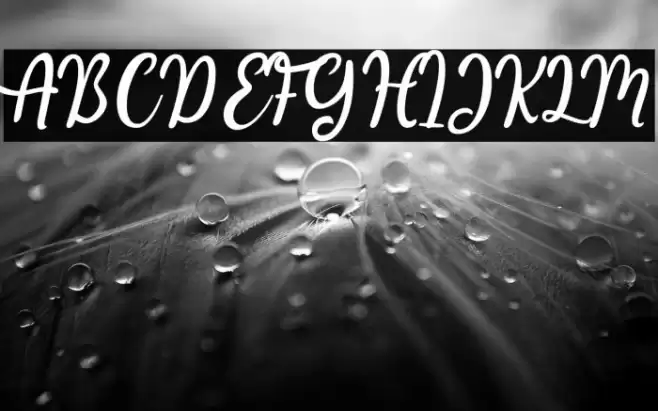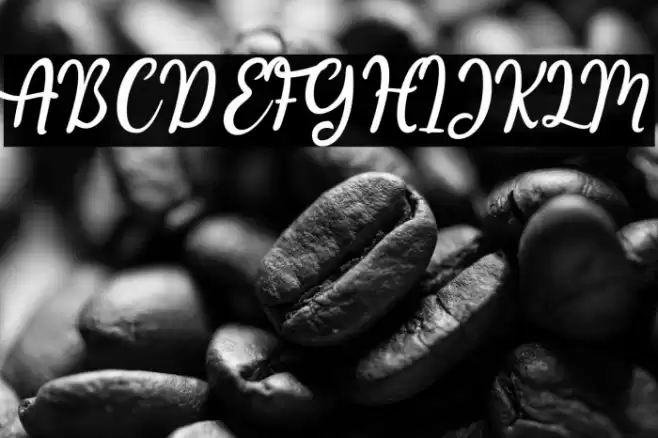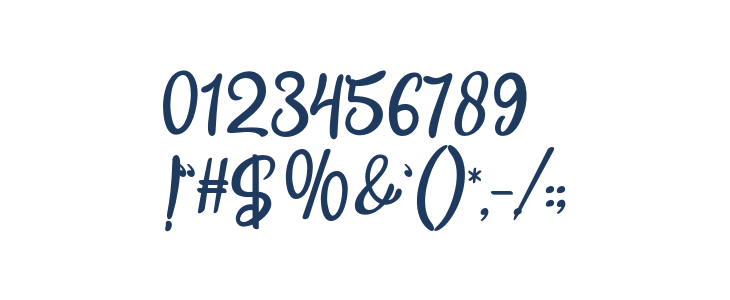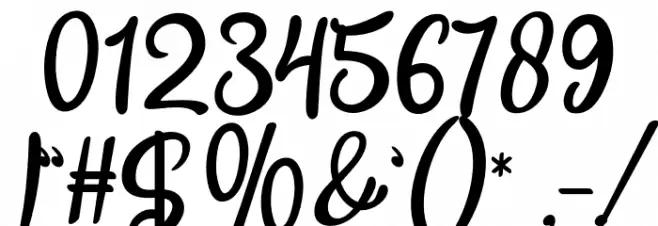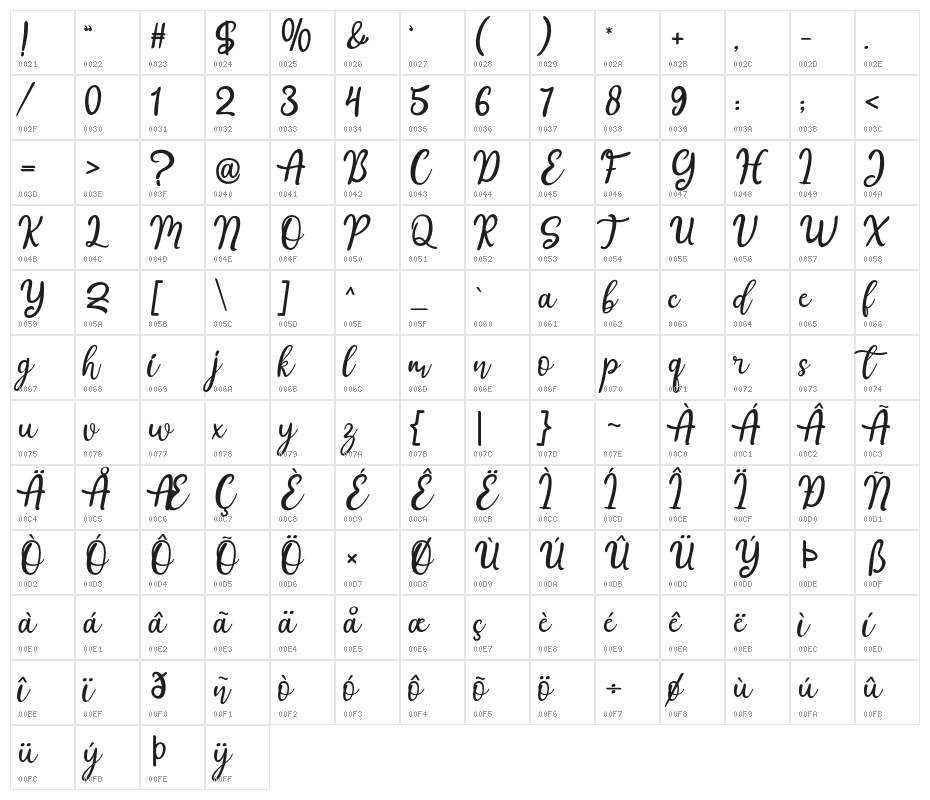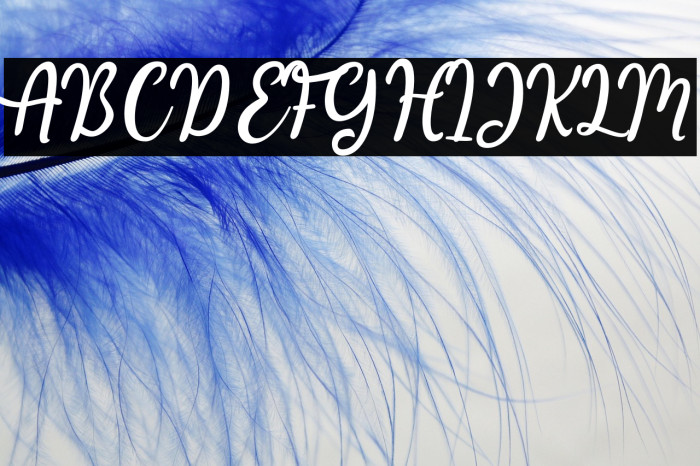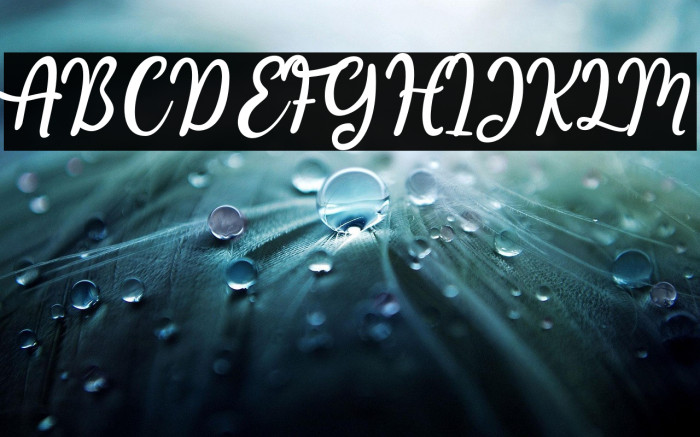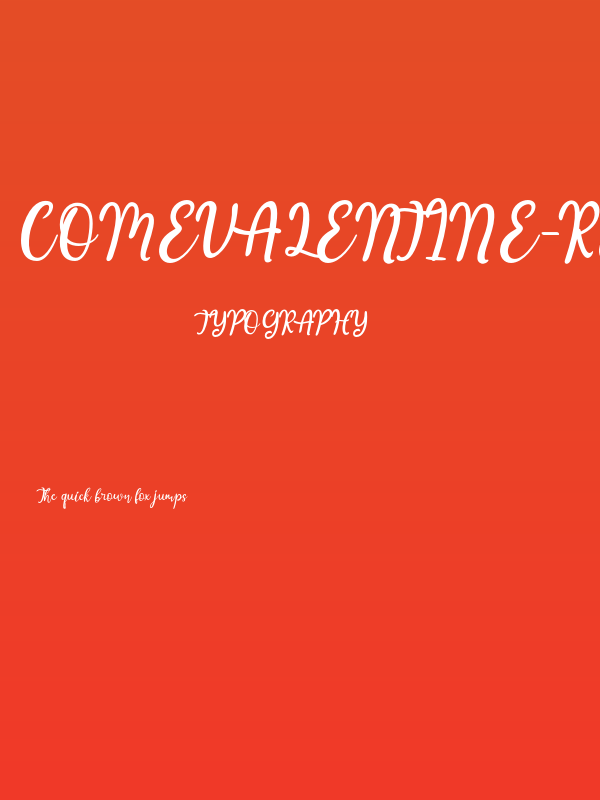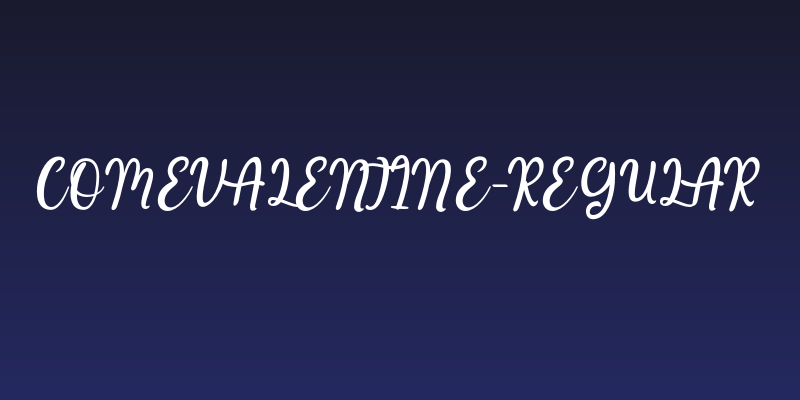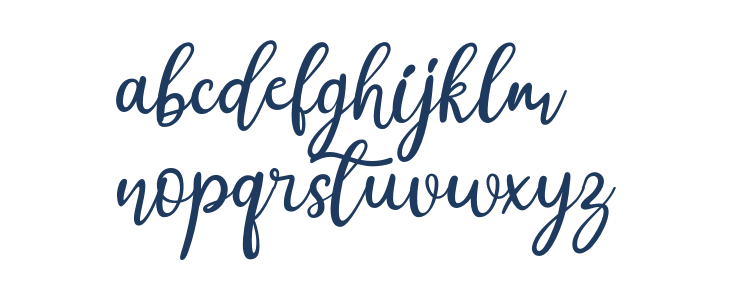
ComeValentine-Regular Font
ComeValentine-Regular Description
This font features a playful and elegant script style with a flowing, handwritten appearance. The characters are connected, creating a sense of continuity and movement. The uppercase letters are bold and slightly slanted, while the lowercase letters maintain a consistent flow with loops and curves. The numerals are clear and legible, matching the overall style of the alphabet. Special characters are creatively integrated, adding to the font's charm. The strokes are smooth, with a medium contrast that enhances readability while maintaining a decorative flair.
A playful and elegant script font with a flowing, handwritten style from Uncategorized fonts.
- Font: ComeValentine-Regular
- Proposed Projects: Ideal for wedding invitations, greeting cards, branding, and social media graphics.
- Use Case: Logos, Headlines, Invitations